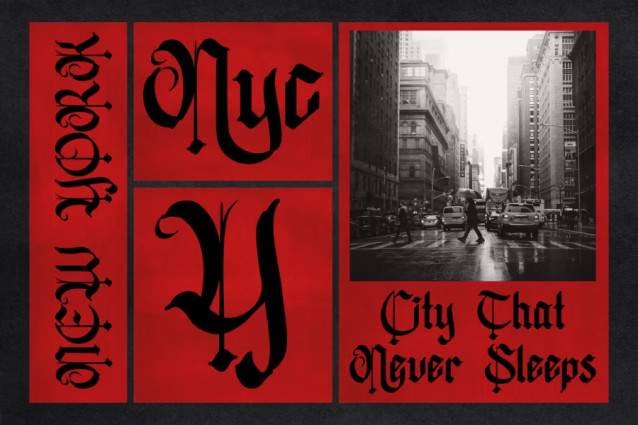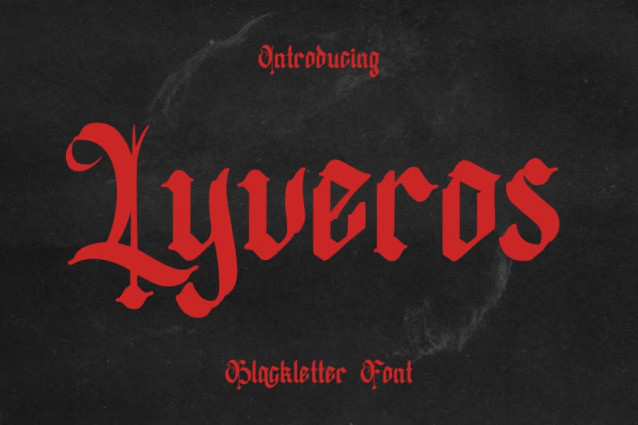
Lyveros Blackletter Font
Lyveros Blackletter Font – Every letter tells a story of strength and mystery. Lyveros was born from the grandeur of medieval calligraphy, then refined with a bold modern touch. The result is a blackletter font that embodies elegance, power, and timeless character.